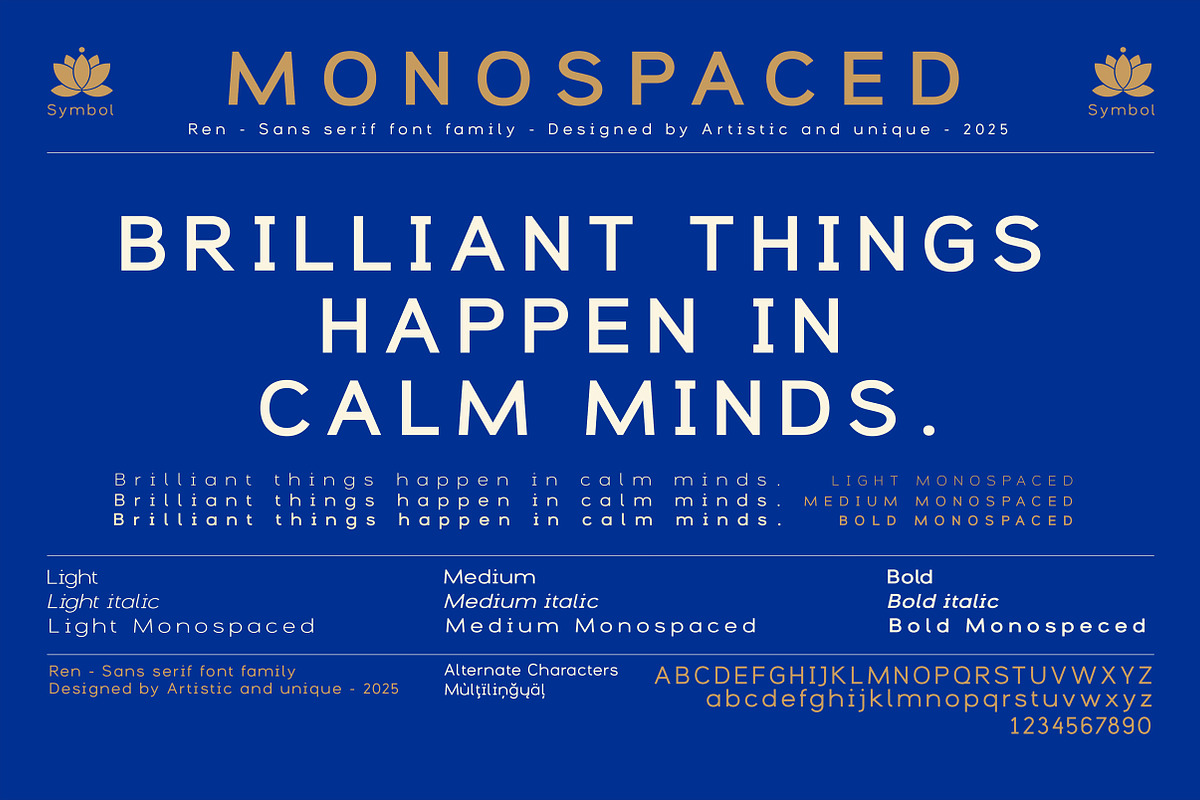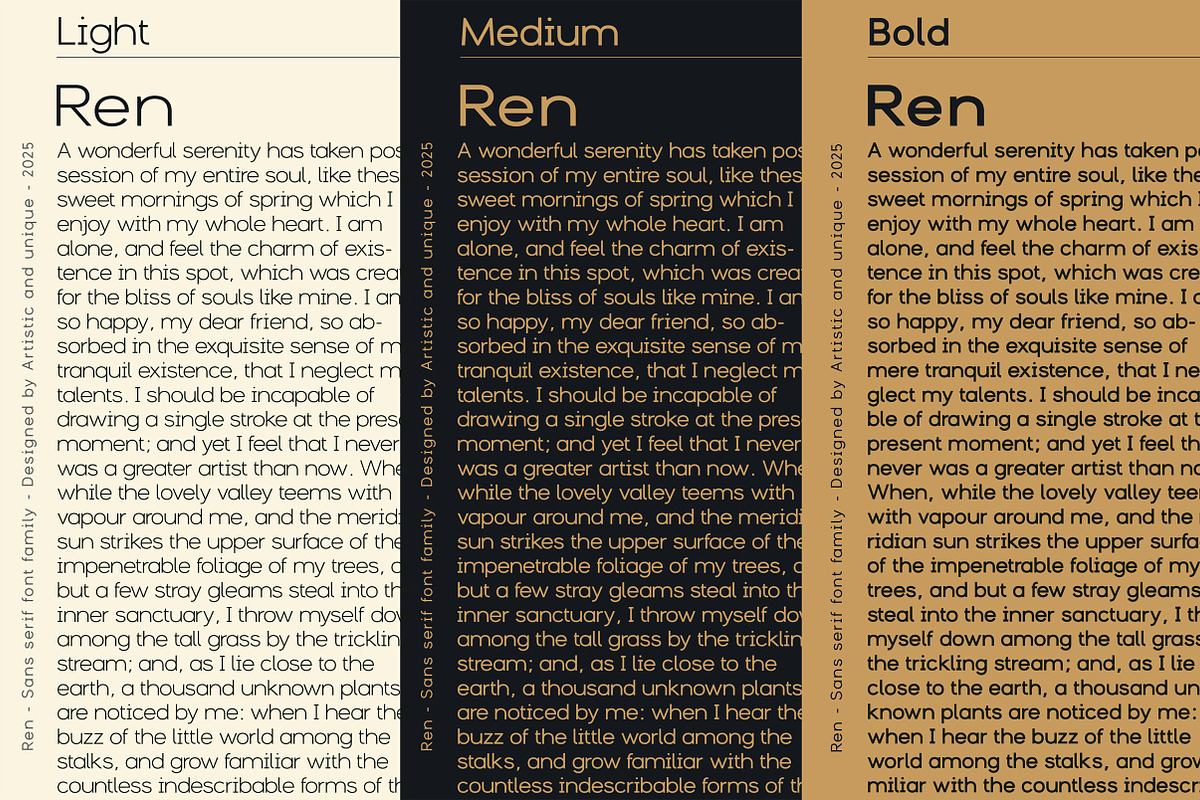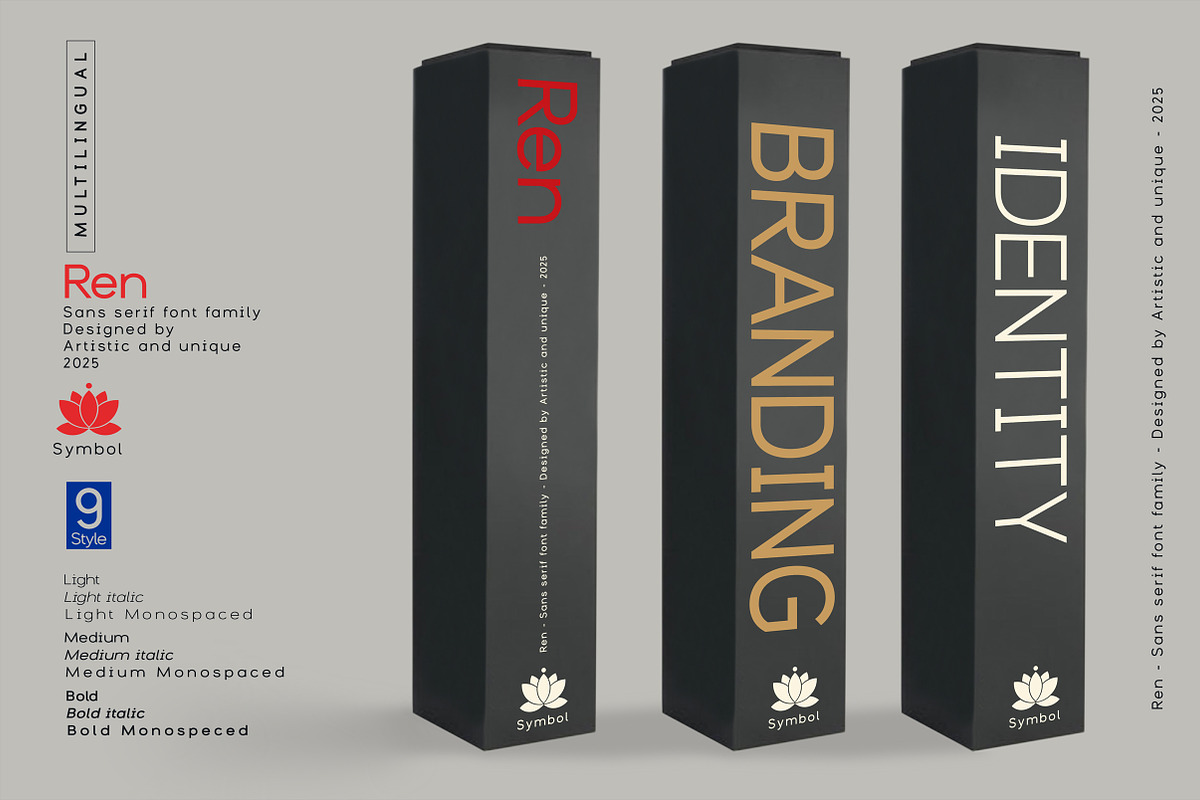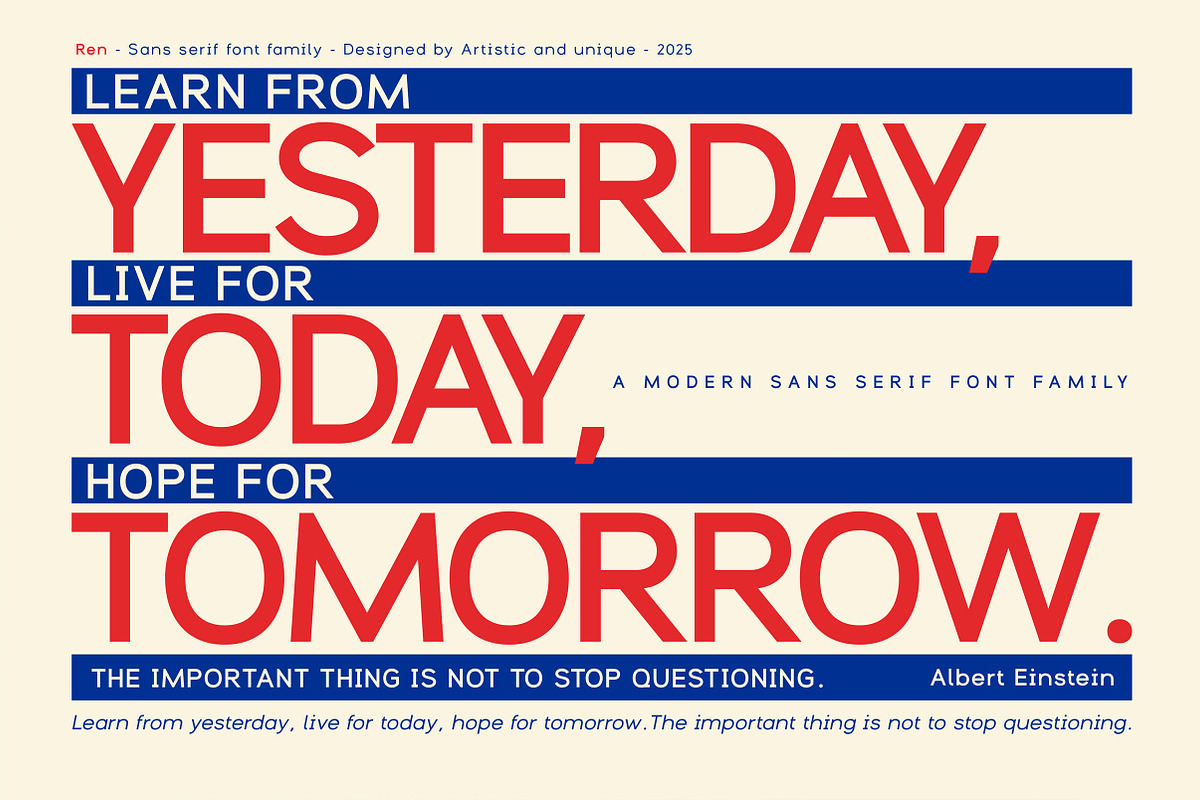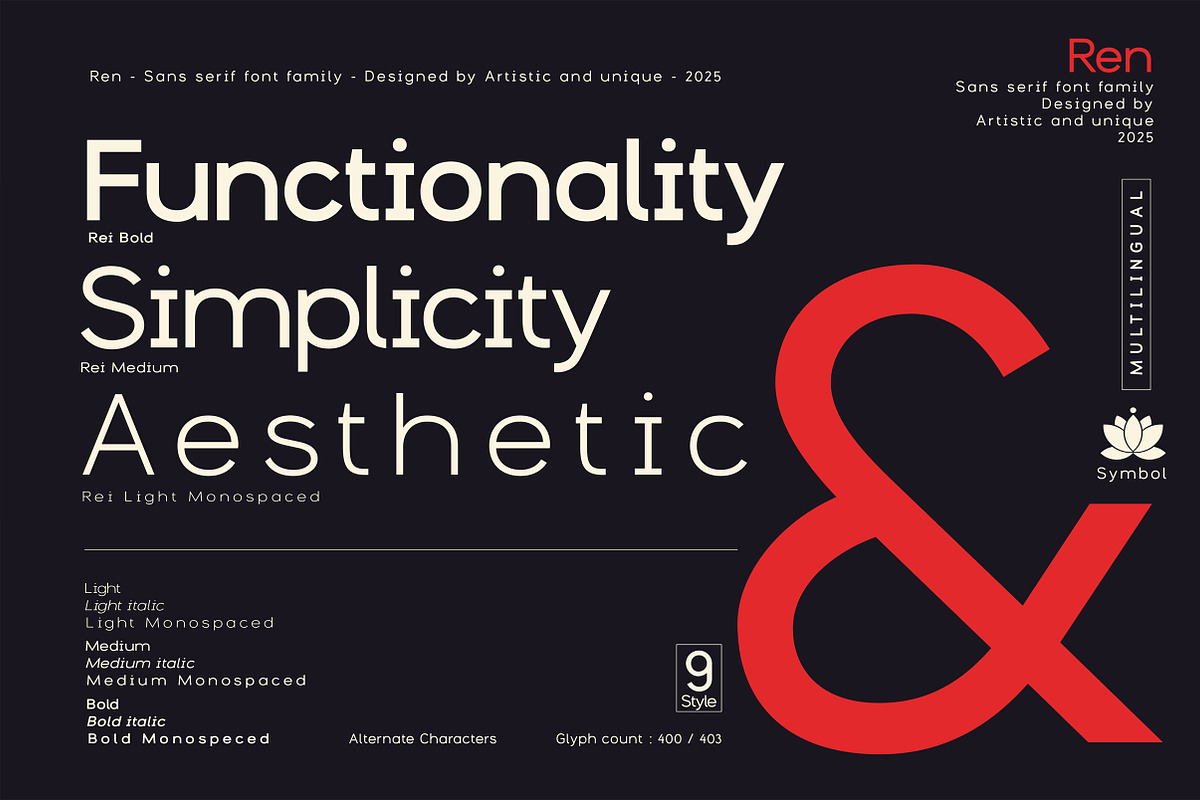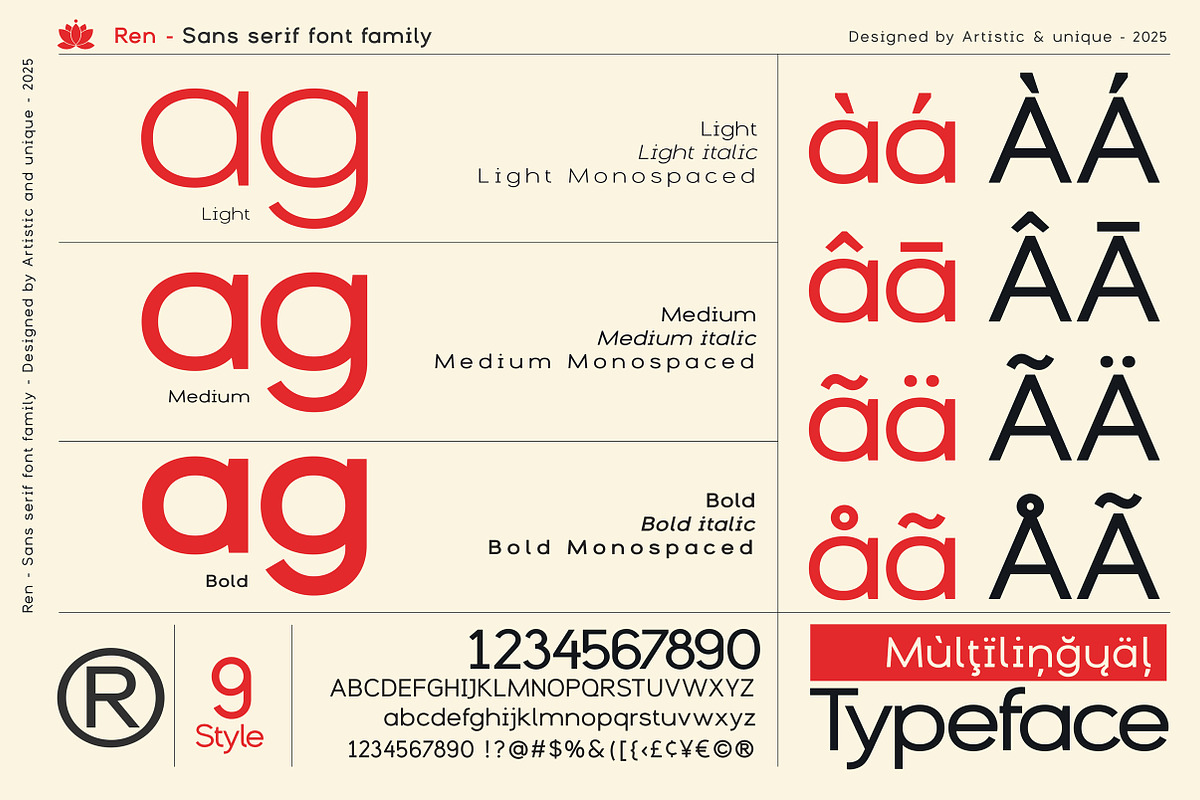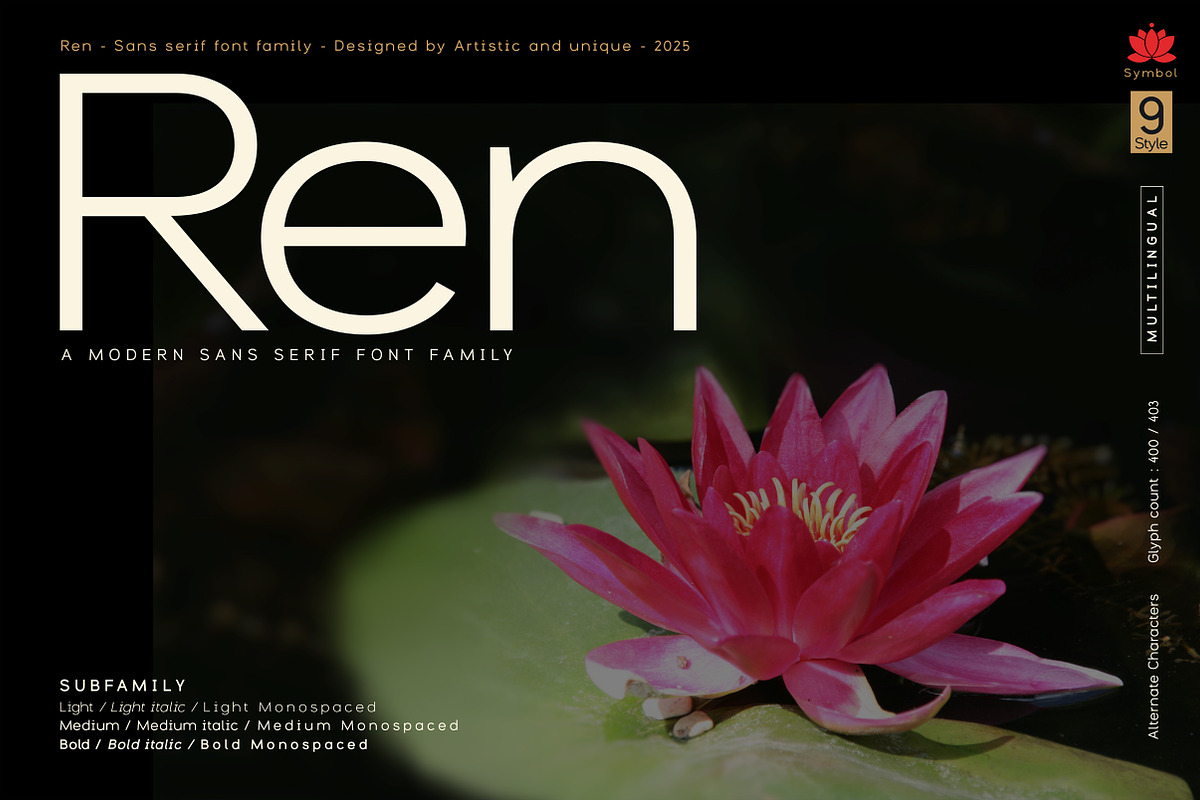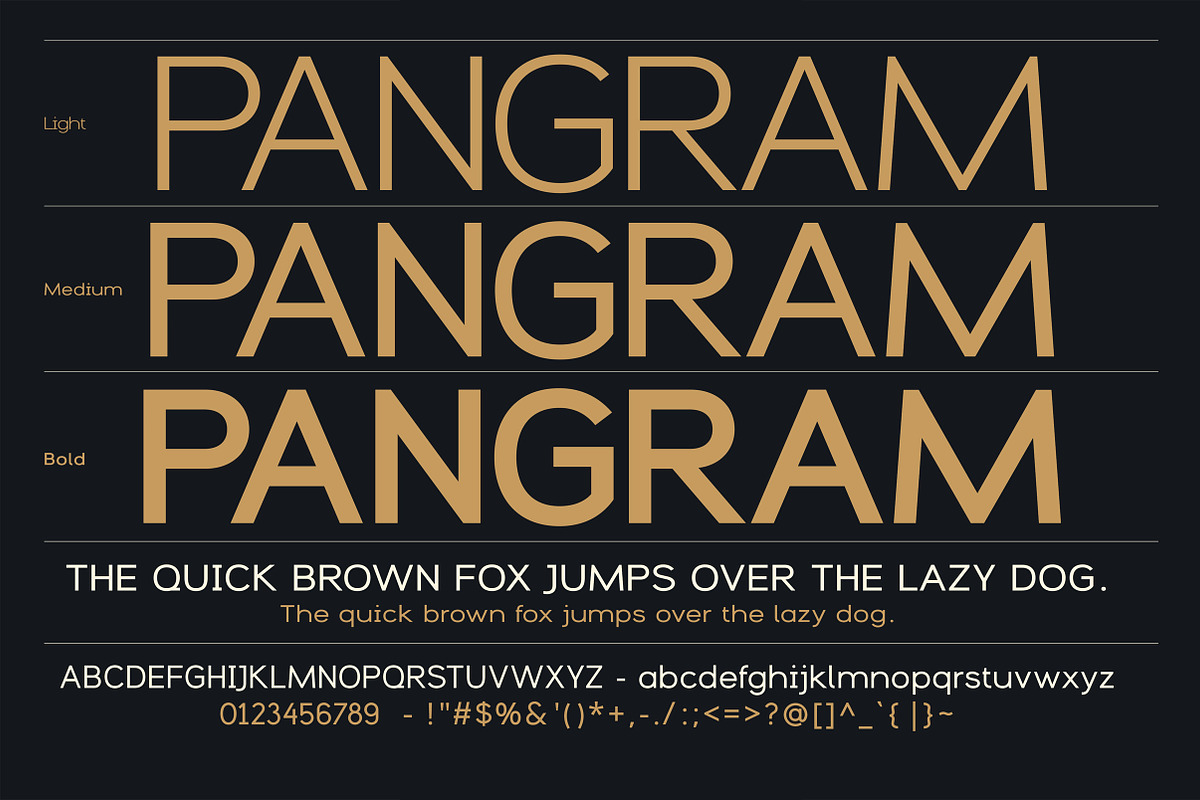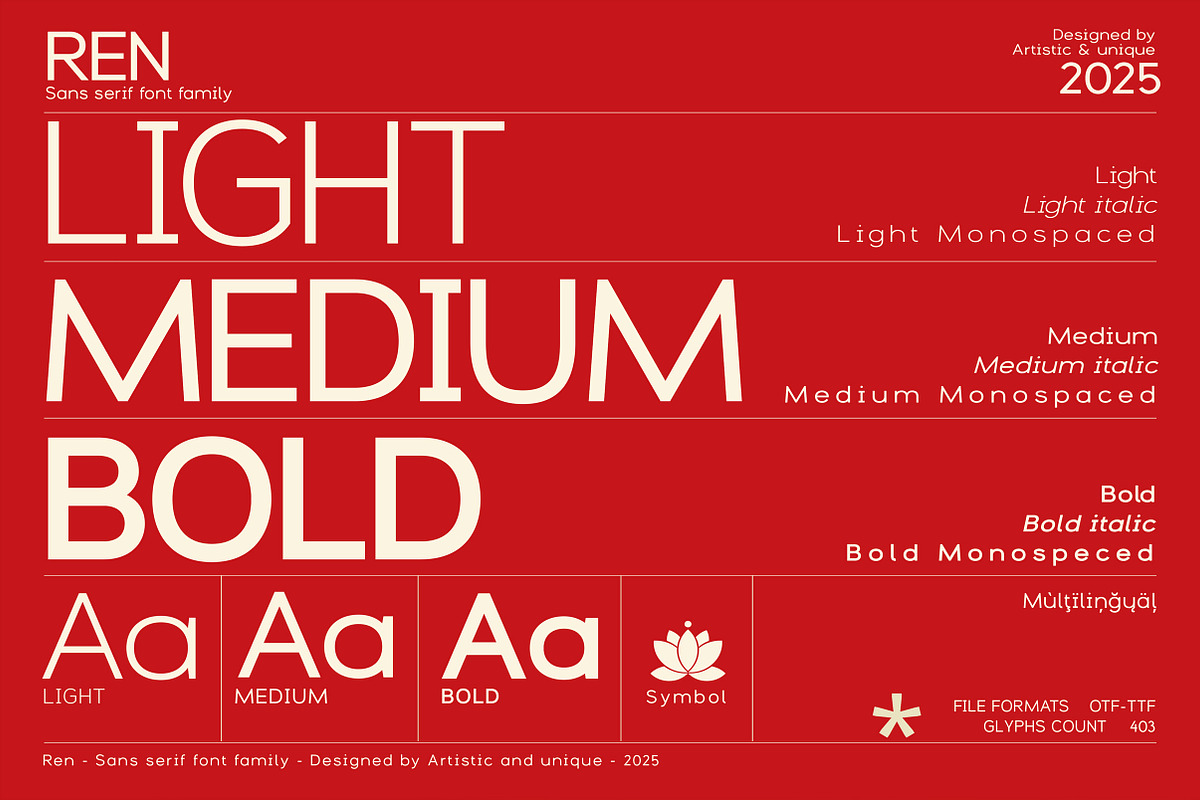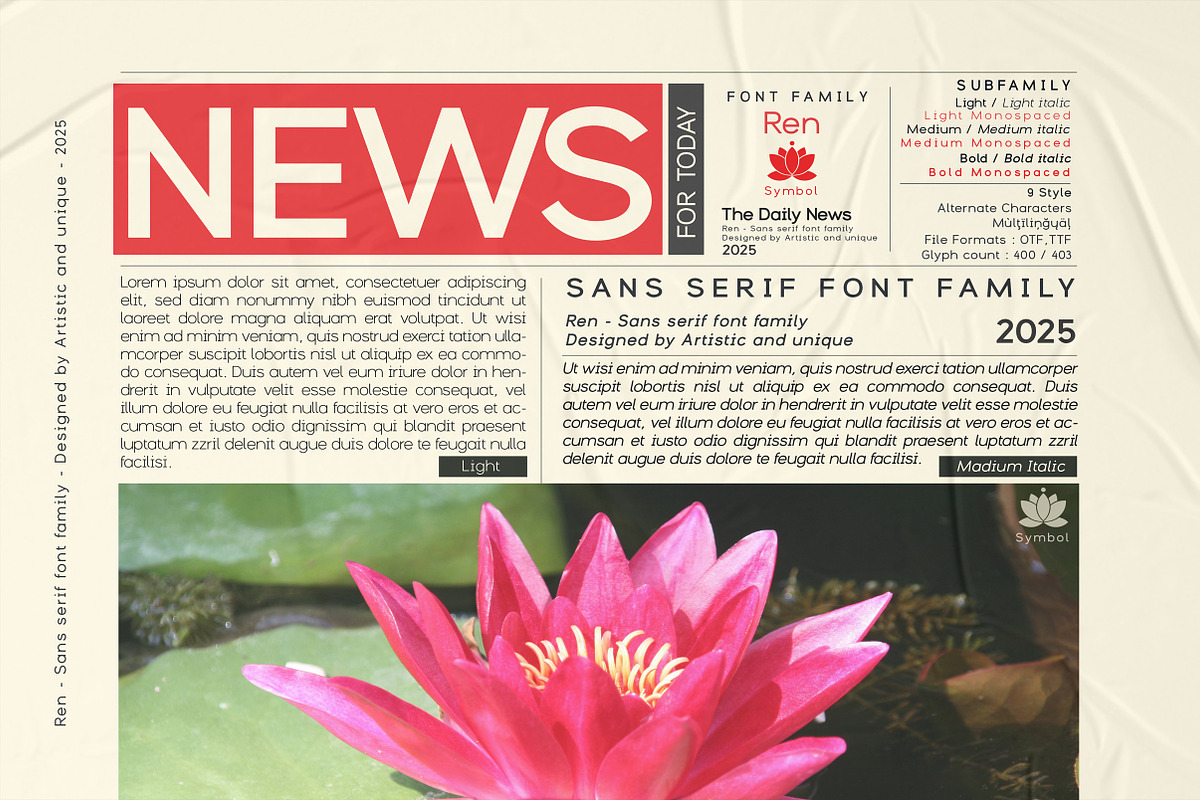
Ren - Sans serif font family
Ren - Sans serif font family - Multilingual support - 9 Styles
In many spiritual traditions, the Ren flower (Lotus) is associated with purity and enlightenment. Its ability to grow from mud and bloom above water symbolizes transcendence and is often used as a representation of one's spiritual journey toward enlightenment.
This font was designed with an emphasis on Japanese elegance and aesthetic simplicity in sans serif typefaces. It features alternative characters, nine styles, multilingual content, and a unique symbol. This richness of content allows it to contribute to the aesthetic concerns of your creative projects.
If you're looking for a more elegant look, you can meet this need with the 3 Monospaces styles.
Extensive Character Set - Includes uppercase, lowercase, punctuation, symbols, and numbers. Extended Design Flexibility - Offers multiple weights and styles. Multilingual Support - Perfect for global projects. Alternate characters.
Whether you're designing books, magazines, or newspapers, or developing editorial headlines, websites, logos, and branding, the Ren font family offers a harmonious blend of modern and classic aesthetics. Enhance your designs with this versatile font that respects tradition while meeting contemporary needs.